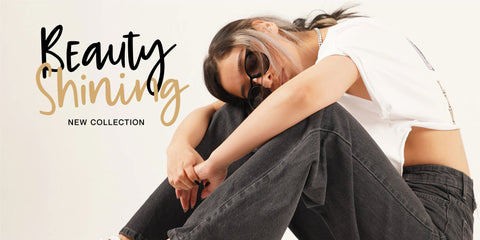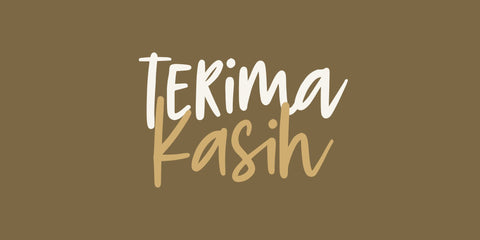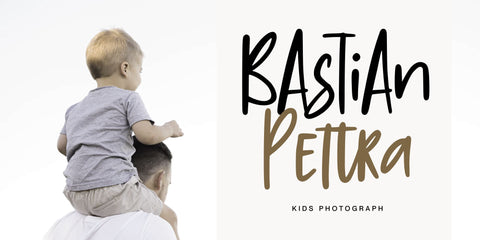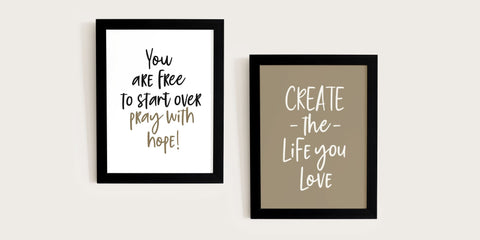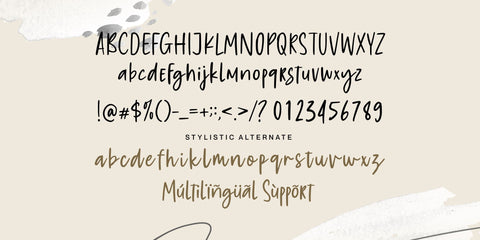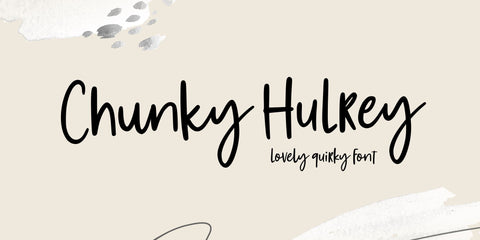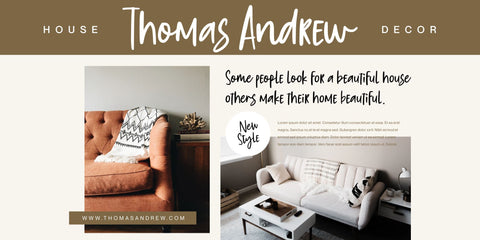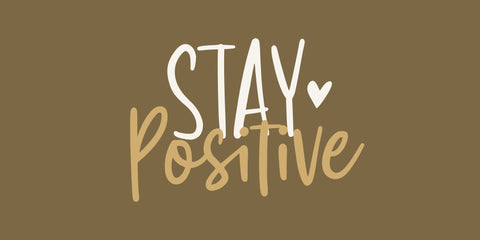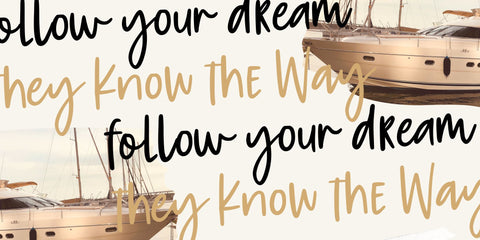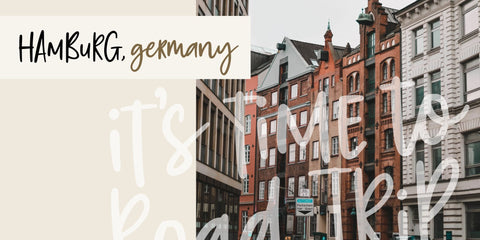
Chunky Hulrey
Proudly Presenting, Chunky Hulrey a Lovely Quirky Font.
Chunky Hulrey is perfect for any titles, logo, product packaging, branding project, megazine, social media, wedding, or just used to express words above the background.
Chunky Hulrey also come with Multi-Lingual Support.